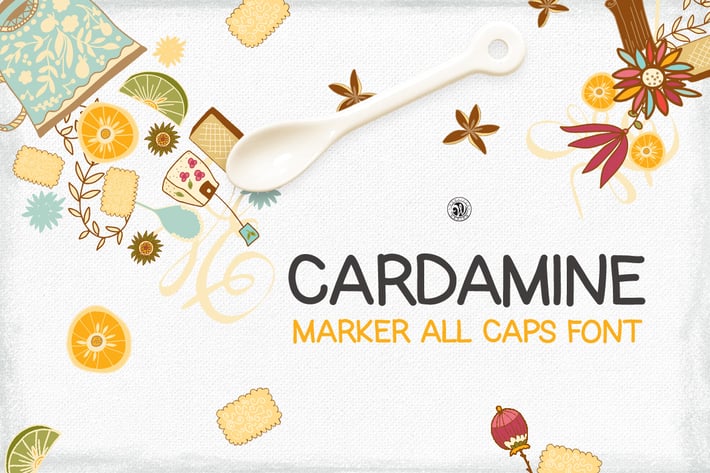
Cardamine Font
Cardamine marker font - hand lettering display font. Ideal for invitations, leading, book cover logos, branding, blogs, handmade craft items, scrap booking, printed paper items and more.
- all caps font, numbers, punctuation